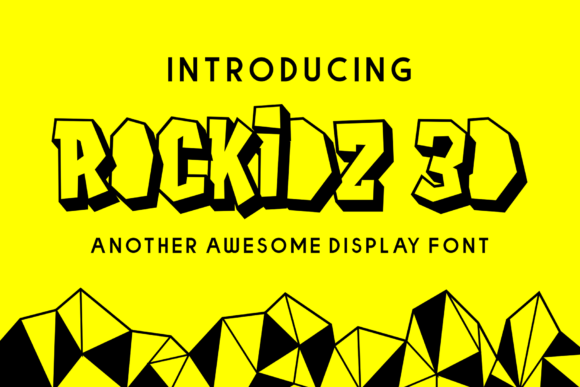
Adorn your designs with Rockidz 3D, a display font family that exudes whimsy and boldness. Its captivating handwritten style injects a cool vibe into any project, adding a touch of playfulness and individuality. Unleash your creativity and embrace the unique charm of Rockidz 3D.
With Rockidz 3D, your designs transcend the ordinary and enter a realm of visual enchantment. Its charming and captivating letters add a whimsical twist to logos, posters, branding, and social media graphics. Let your imagination run wild as you explore the endless possibilities that Rockidz 3D offers.
Designed by the talented Cikareotype, Rockidz 3D is a masterpiece of digital artistry. Each letter dances across the screen with a unique personality, inviting you to create designs that are as captivating as they are memorable. Embrace the power of Rockidz 3D and watch your projects come alive with playful energy.
Join countless designers who have fallen in love with the magic of Rockidz 3D. Experience the transformative power of this display font family and unlock a world of design possibilities. Let your creativity soar with Rockidz 3D and create designs that ignite imaginations and leave a lasting impression.